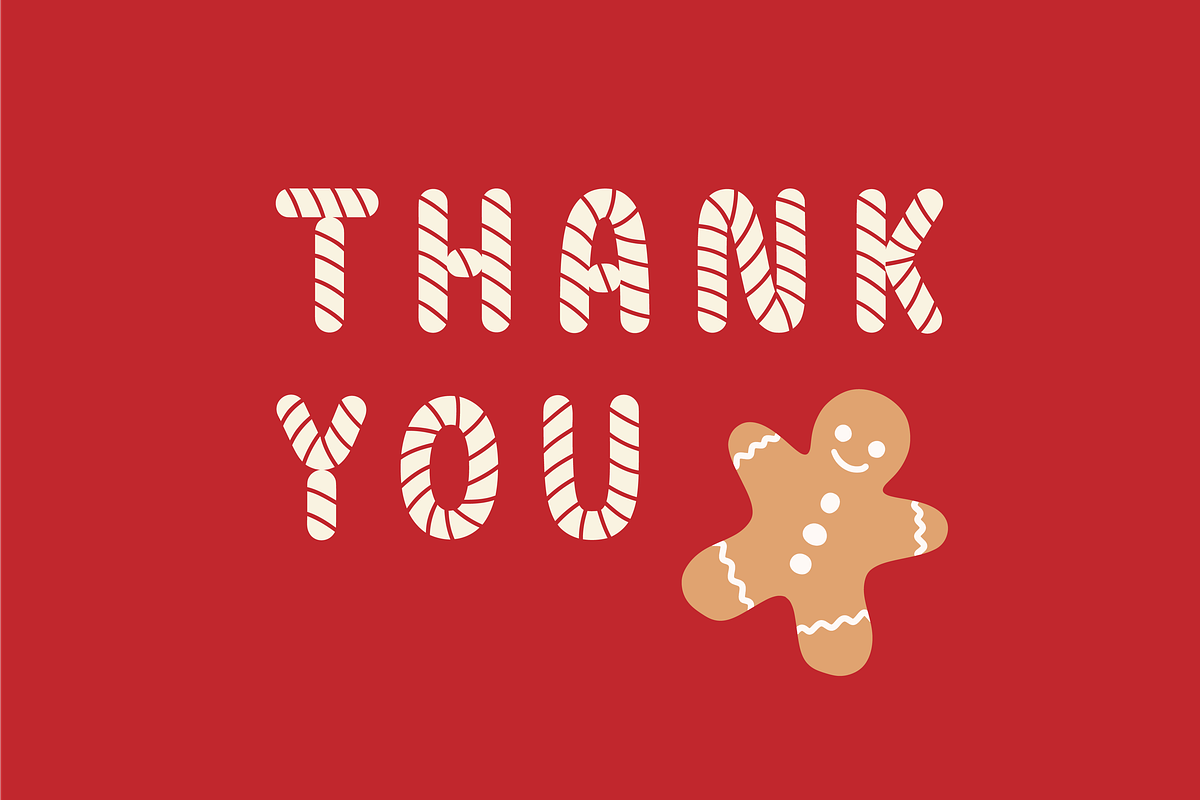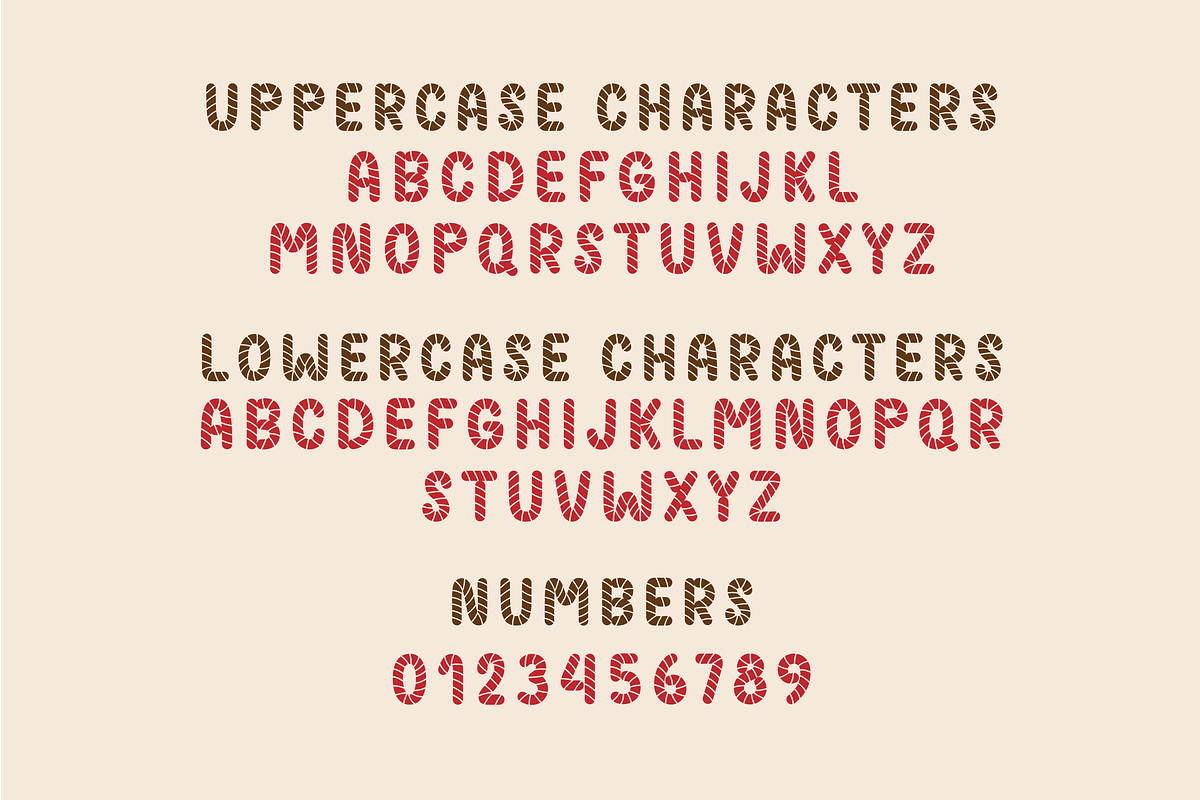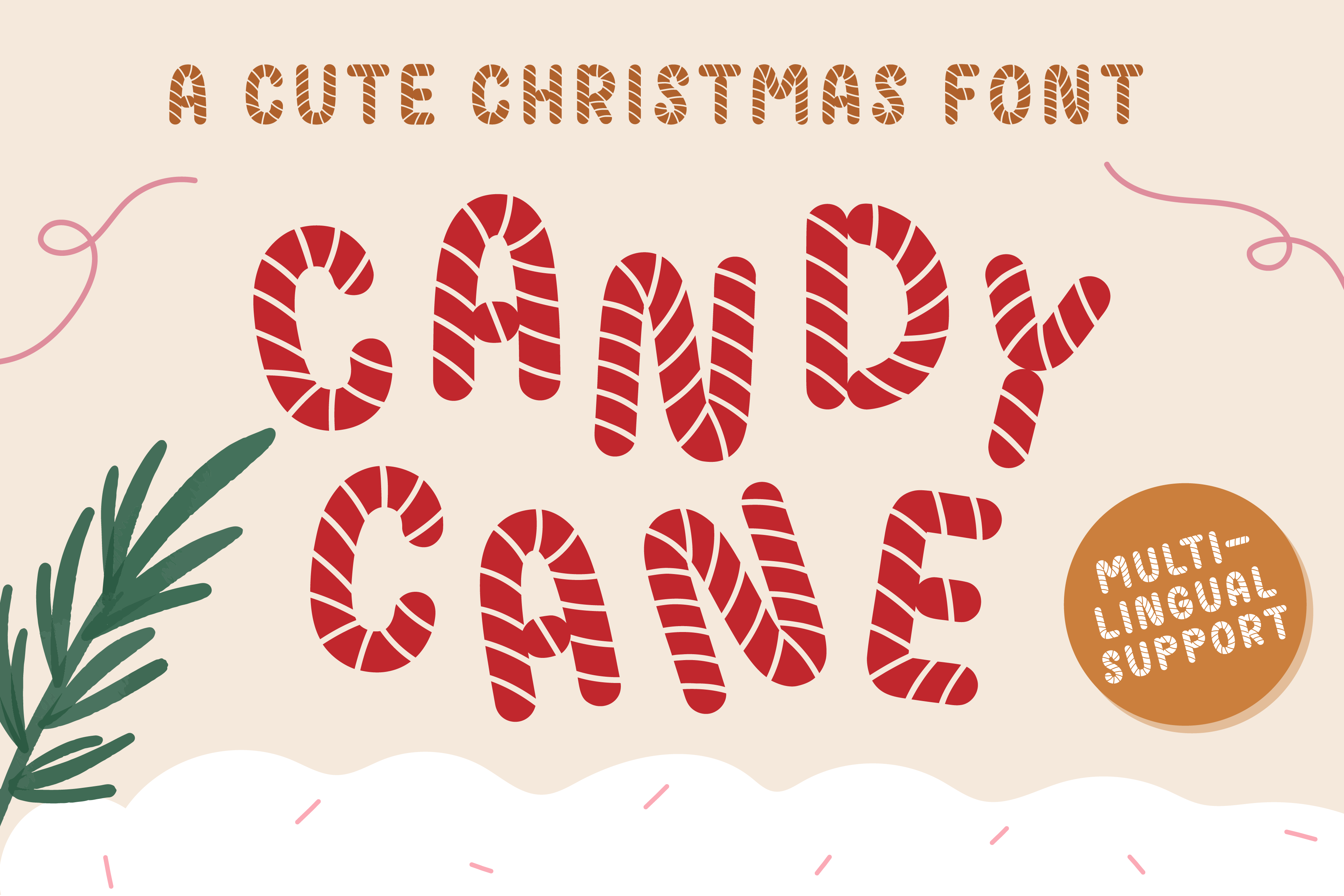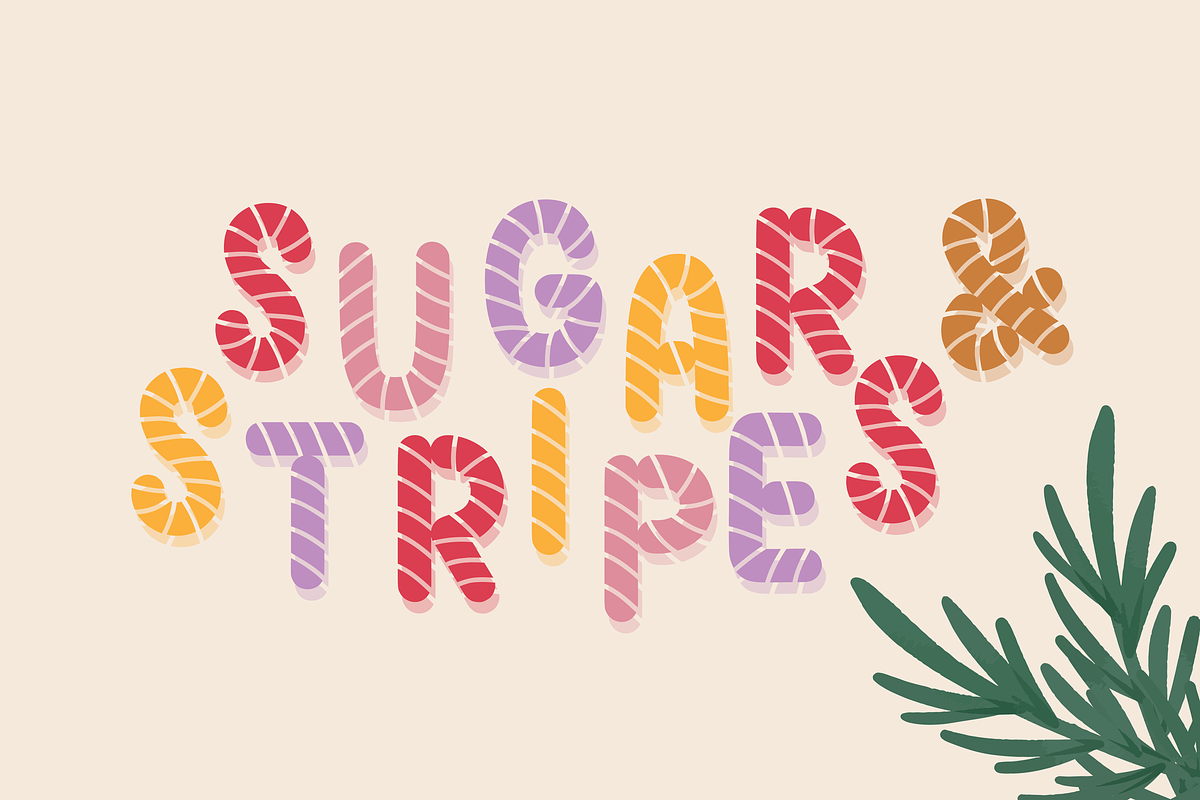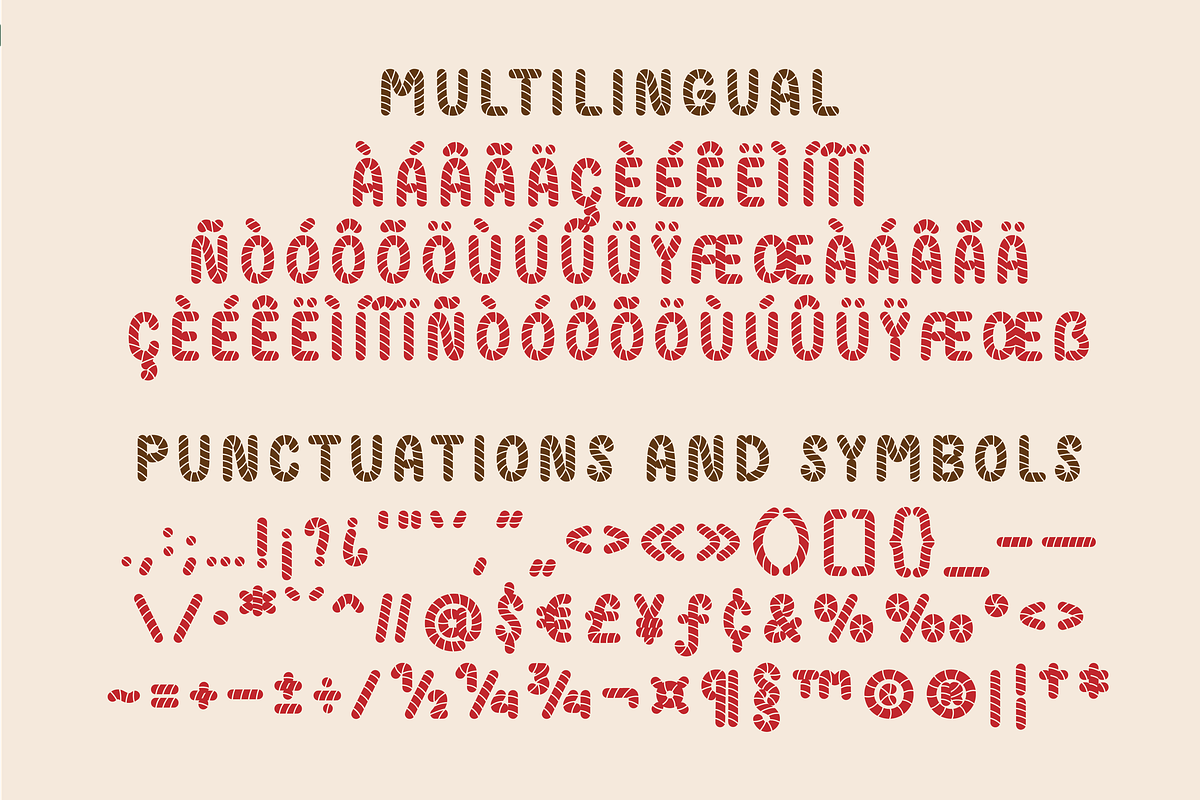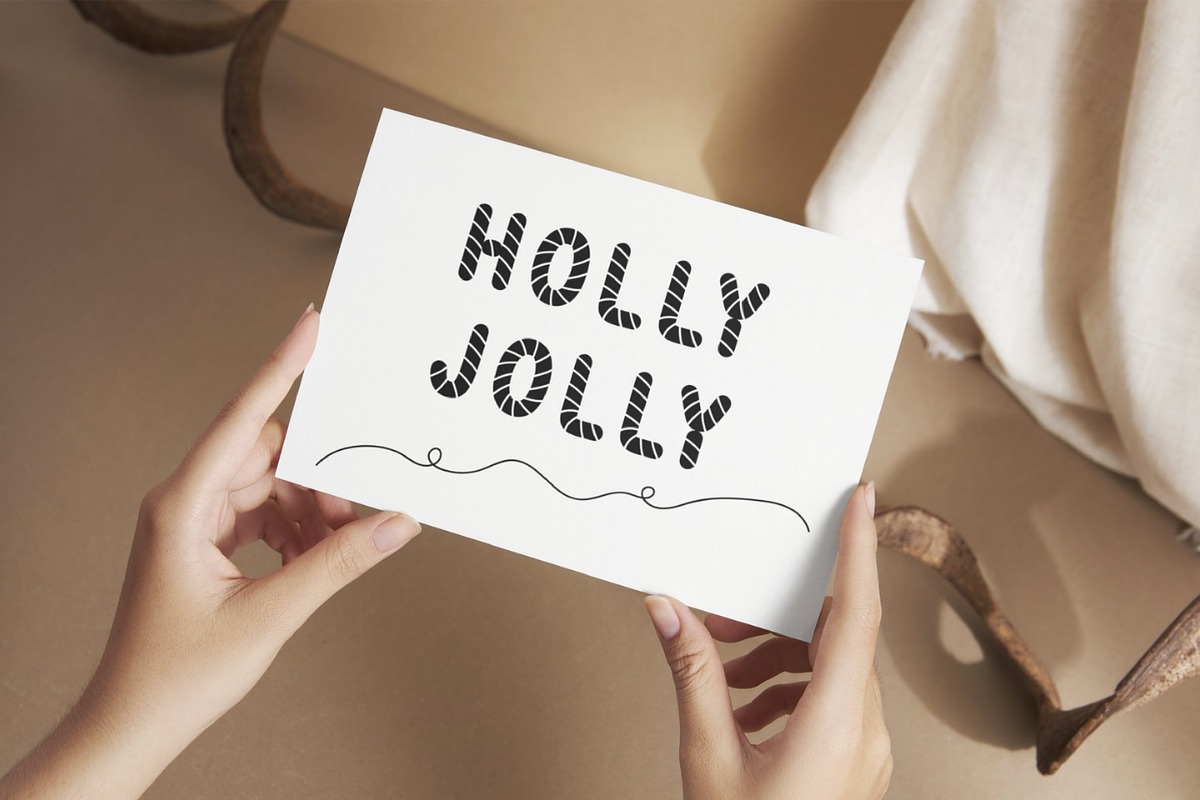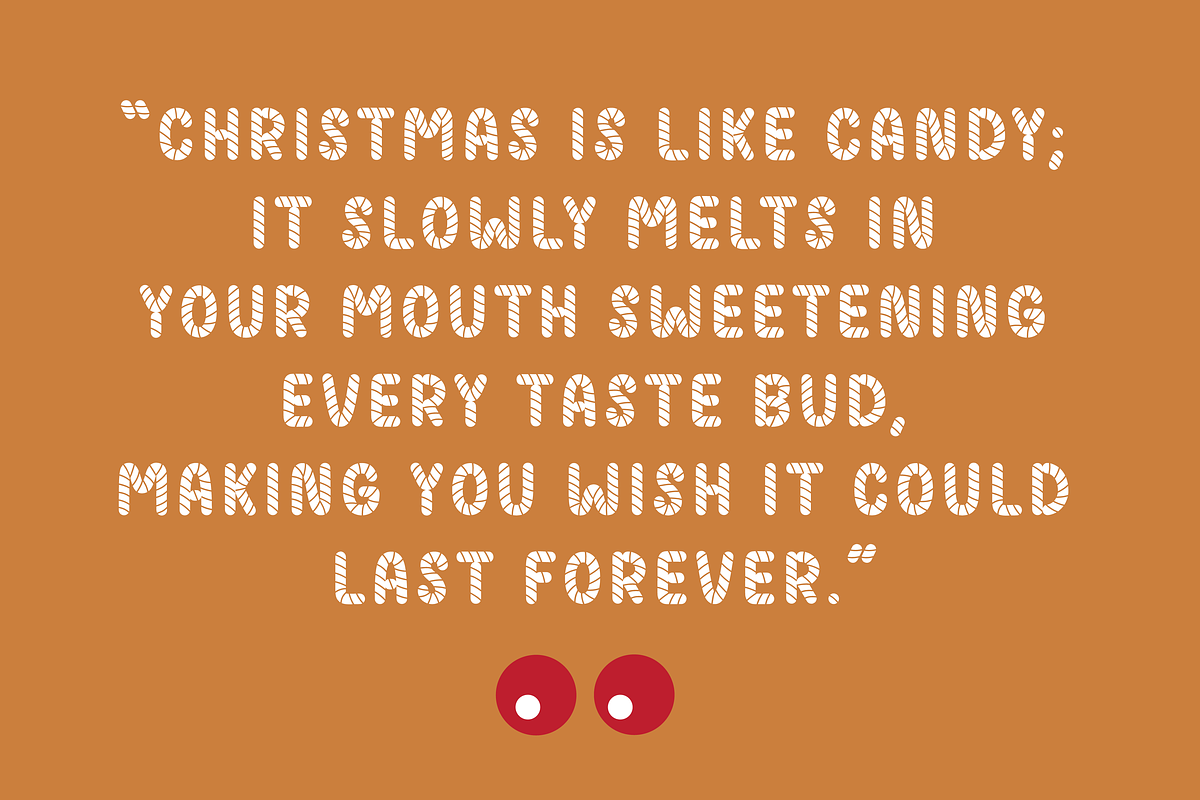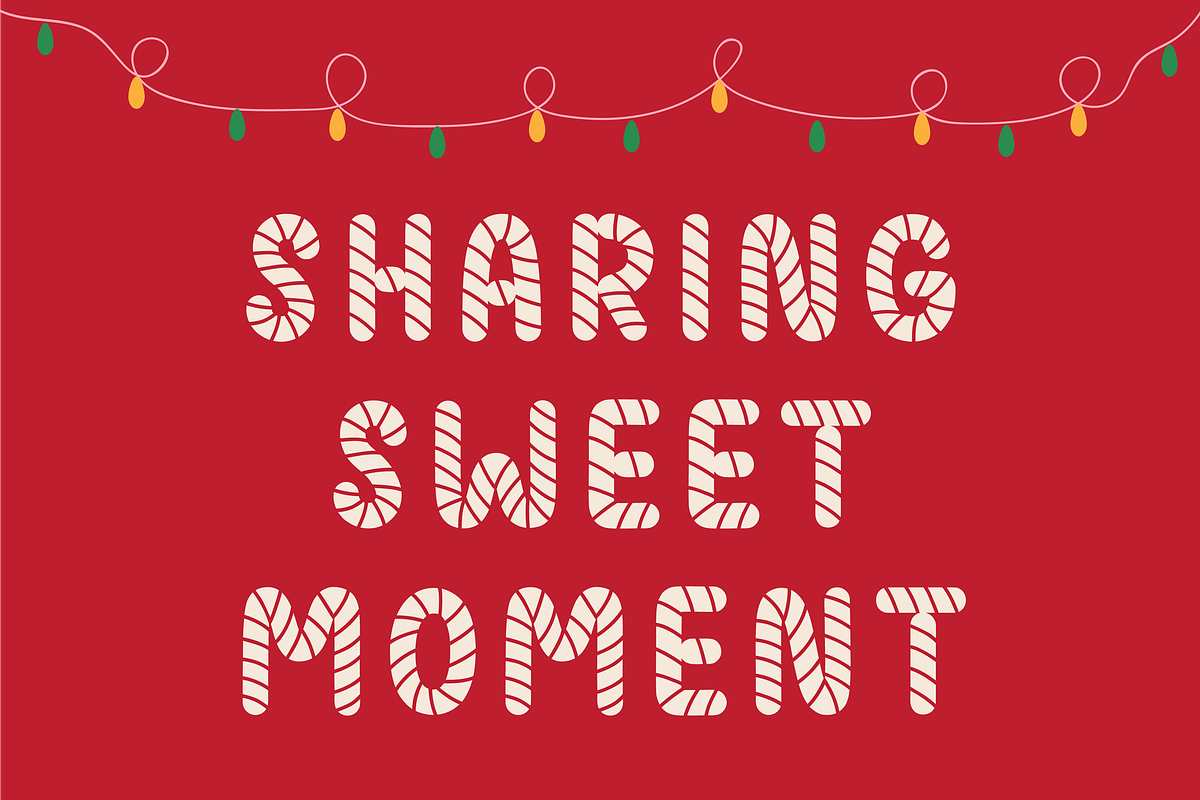
Candy cane font
CANDY CANE is a cute Christmas decorative font. Perfect for Christmas projects, shirts, retro designs, Christmas invitations, mugs, stickers, playful quotes, creating posters, logos, greeting cards, packaging, decorating the illustration and so much more!
Candy cane Features:
- Extended punctuation.
- Multilingual Characters support.